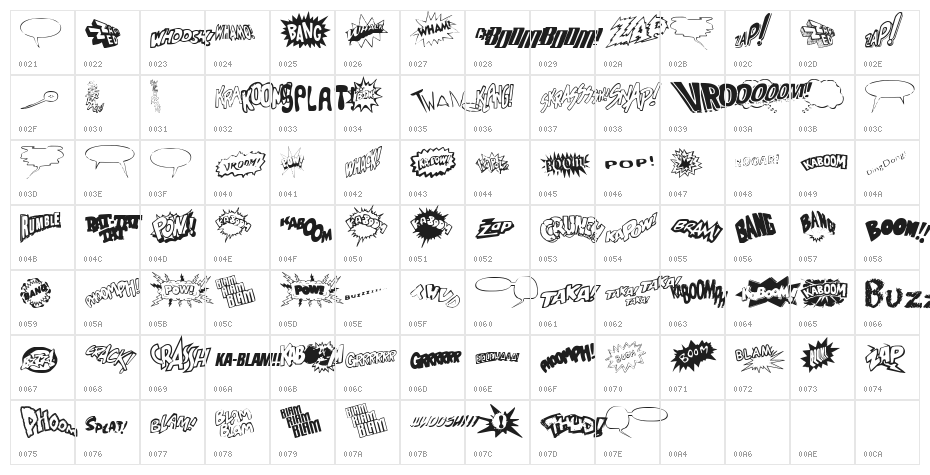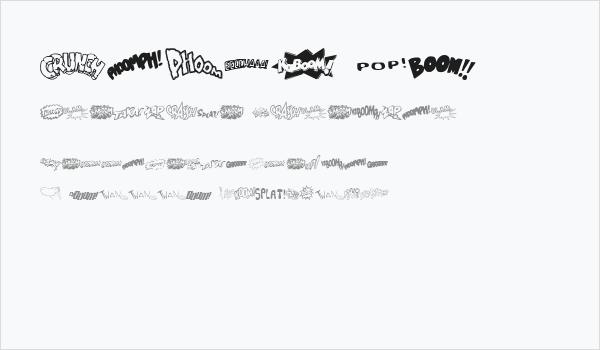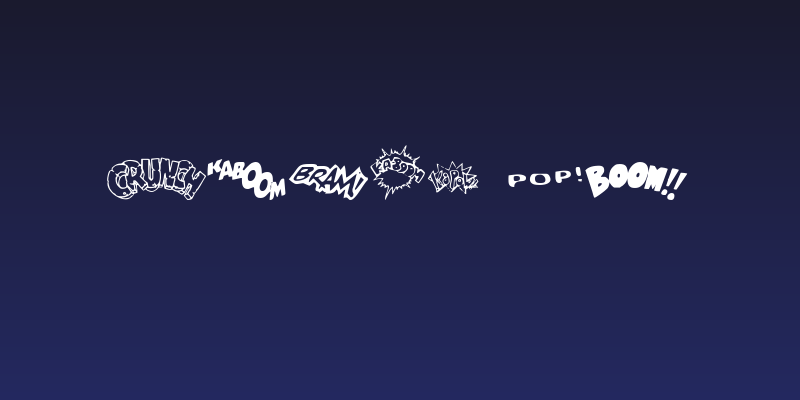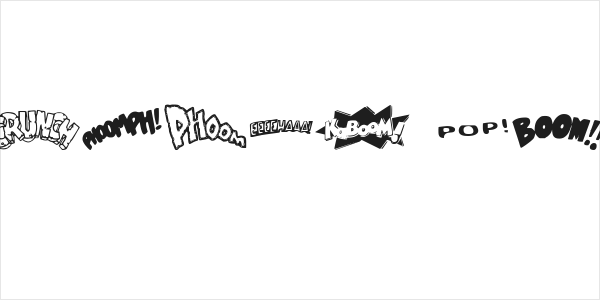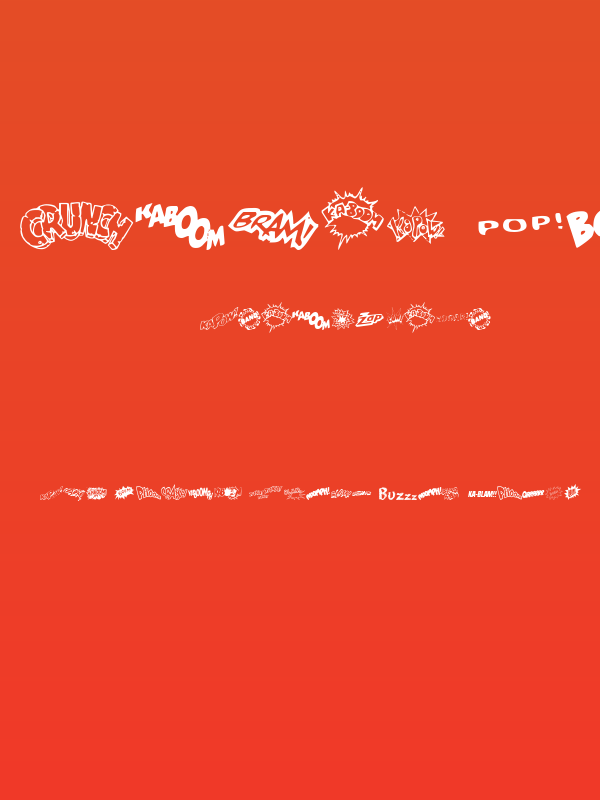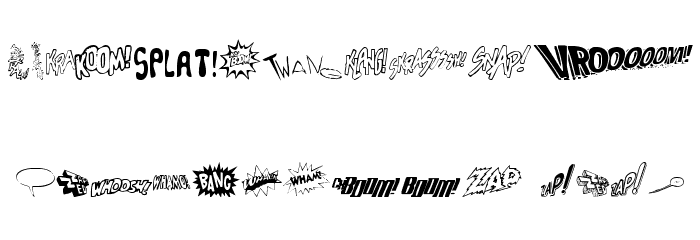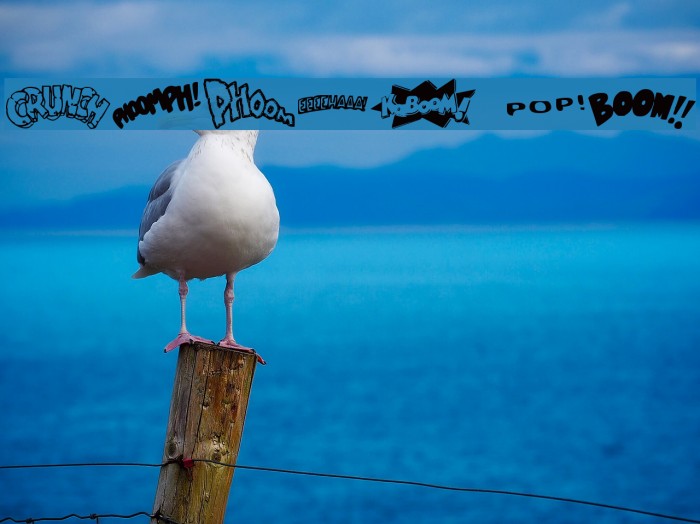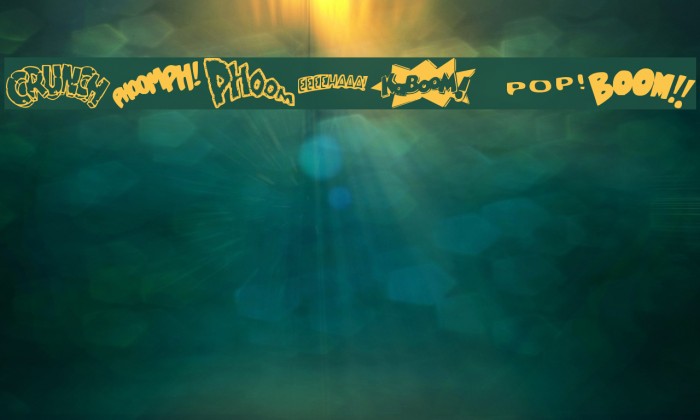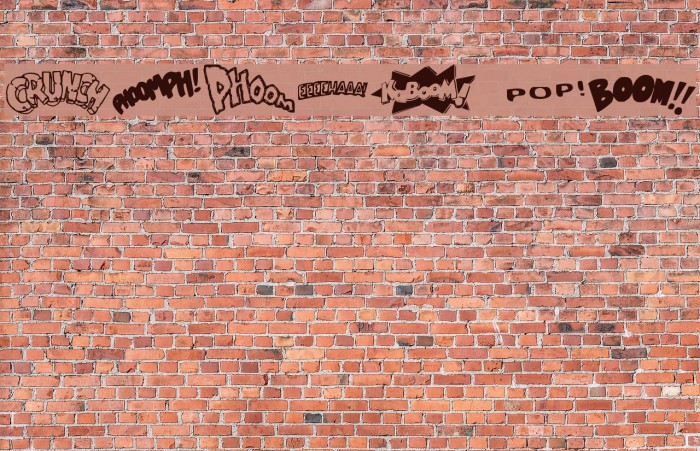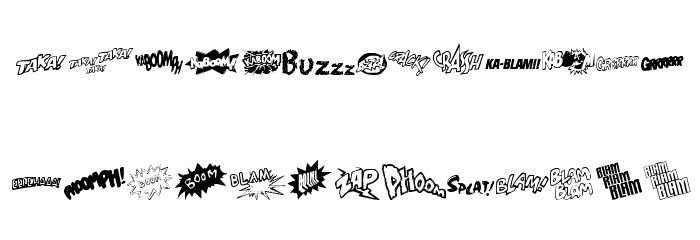
Sound FX Font
Sound FX Description
This font is a dynamic and energetic display style, capturing the essence of comic book sound effects. Each character is designed with explosive and exaggerated forms, often incorporating bold outlines and varying thicknesses to emphasize action and movement. The letters are highly stylized, with jagged edges and irregular shapes that mimic the visual language of classic comic book onomatopoeia. This font is perfect for creating a sense of excitement and drama, with its playful and impactful appearance. The characters are tightly spaced, enhancing the sense of urgency and intensity. The overall design is both nostalgic and modern, appealing to fans of comic art and graphic novels.
| Proposed Projects | Ideal for comic books, graphic novels, posters, and any project requiring a dramatic, playful touch. |